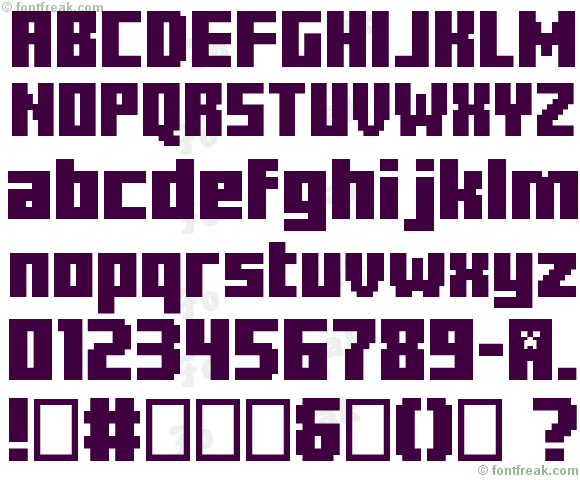
Minercraftory Regular
Minercraftory Regular by Jayvee Enaguas is a striking display font that embodies a unique and playful aesthetic. This font falls under the decorative category, making it ideal for projects that require a sense of fun and creativity. Its blocky letterforms, reminiscent of pixel art, feature a uniform stroke weight that provides a sturdy and impactful presence. The characters are well-spaced, contributing to legibility while maintaining an engaging visual flow. The absence of excessive decorative elements allows the font to shine in its simplicity, making it a versatile choice for various applications.
This distinctive font is perfect for a variety of use cases. It can elevate video game-themed posters, adding a nostalgic touch that resonates with gamers. Additionally, Minercraftory Regular is well-suited for children's party invitations, where its playful nature can capture the excitement of young attendees. Small business owners can utilize this font on merchandise branding or product packaging, creating an eye-catching appeal that stands out on shelves. Furthermore, it serves as an excellent choice for social media graphics, helping content creators make memorable posts that attract attention.
The target audience for Minercraftory Regular includes graphic designers looking for a unique typeface to enhance their creative projects, as well as small business owners eager to establish a distinct brand identity. Content creators will also find this font to be an asset in producing engaging visuals that resonate with their audience.
What sets Minercraftory Regular apart is its ability to blend nostalgia with modern design sensibilities. The font's playful yet straightforward character makes it a fantastic choice for anyone seeking to create memorable and visually appealing content. You can easily access the Minercraftory Regular font free download, allowing you to incorporate this unique typeface into your projects today.